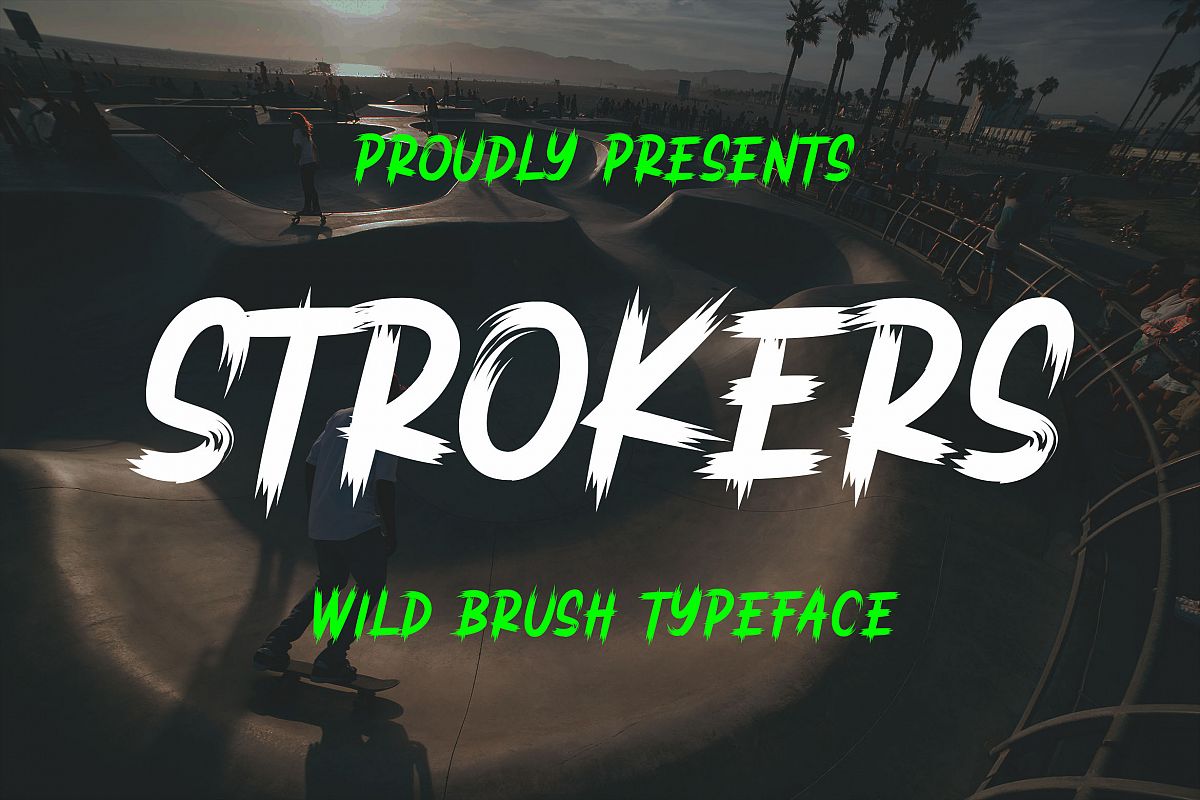
Introducing of our new product the name is Strokers Wild Brush Typeface. Strokers is Urban style good for poster, logotype, t-shirt design, apparel, clothing, branding etc
MULTILINGUAL ACCENT :
* ŽžŠŒšŸÀÁÂÃÄÅÆÇÈÉÊËÌÍÎÏÐÑÒÓÔÕÖØÙÚÛÜÝßàáâãäåæçèéêëìíîïñòóôõöøùúûüýÿ
* Uppercase
* Lowercase
* Number
* Punctuation
* Multilingual